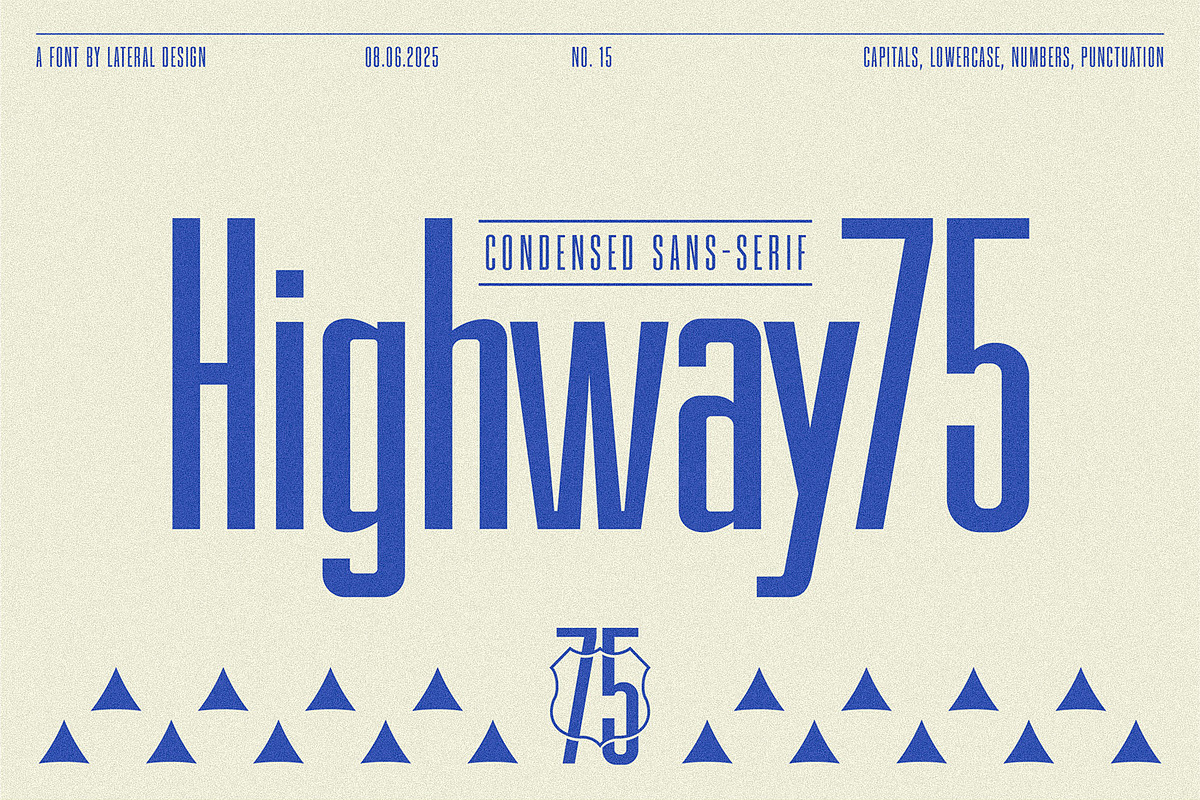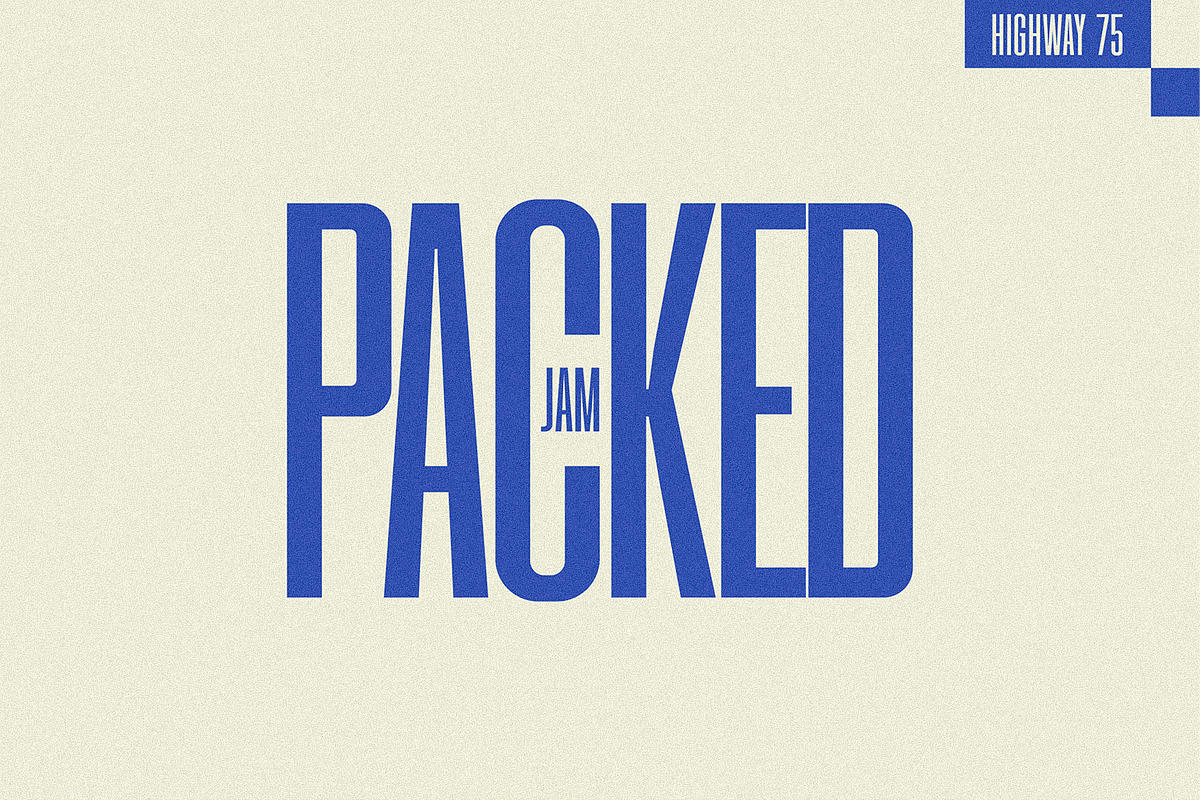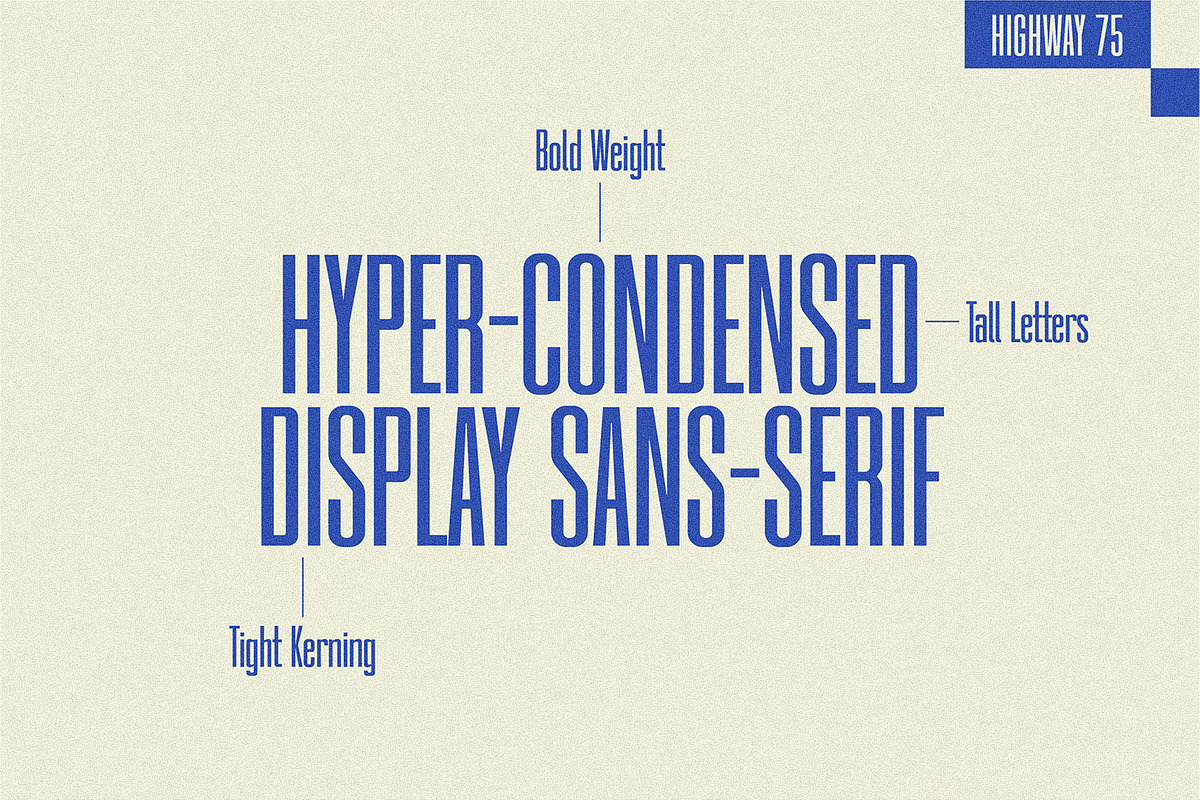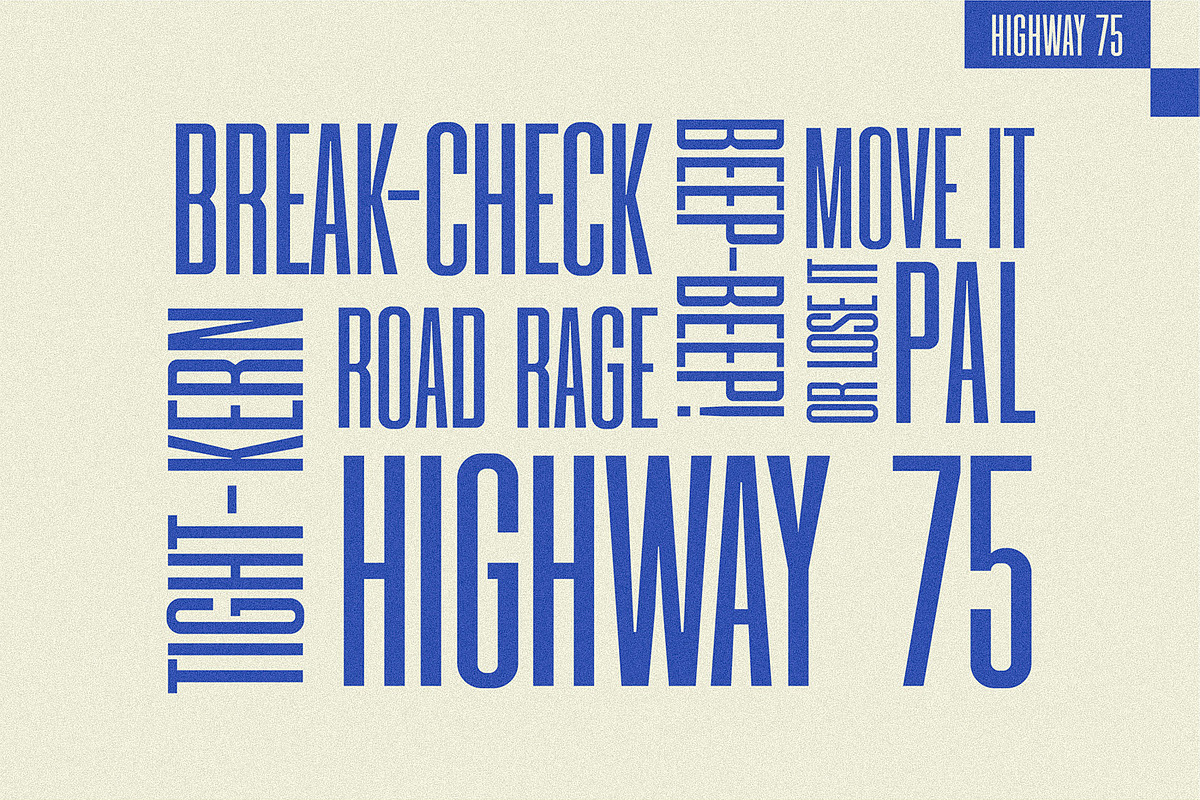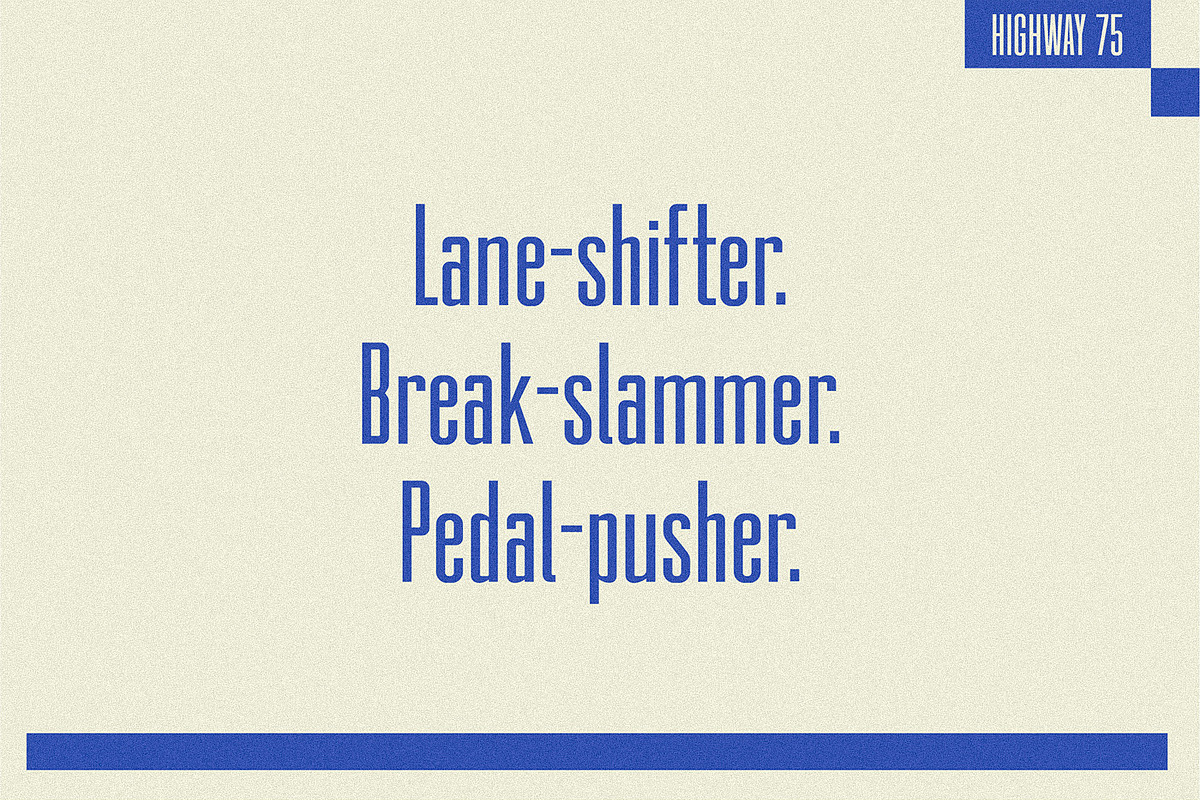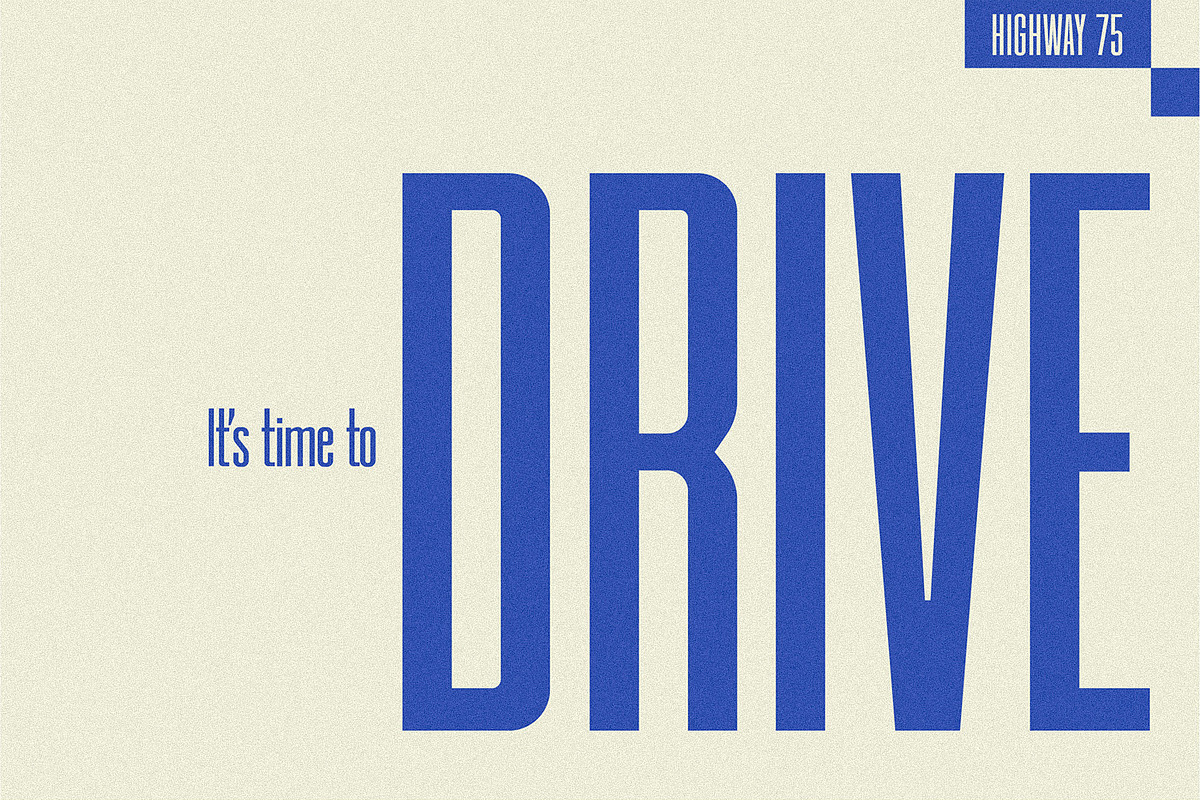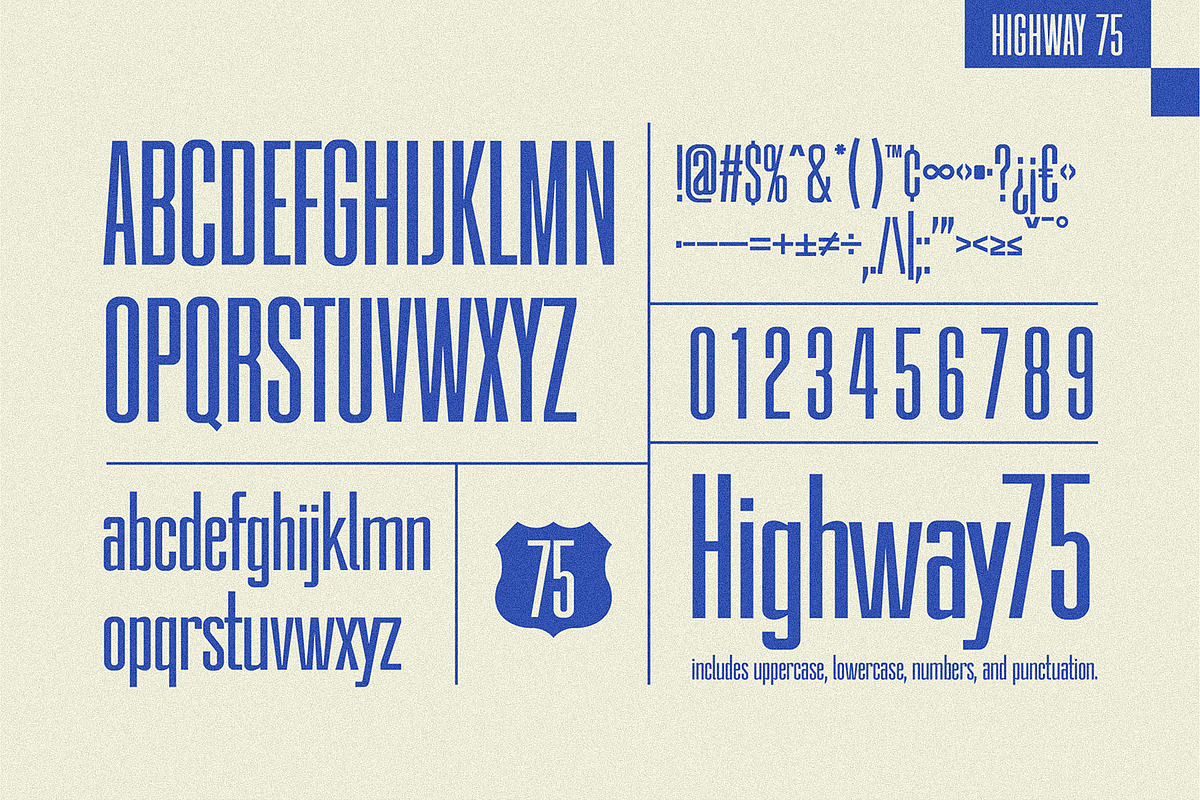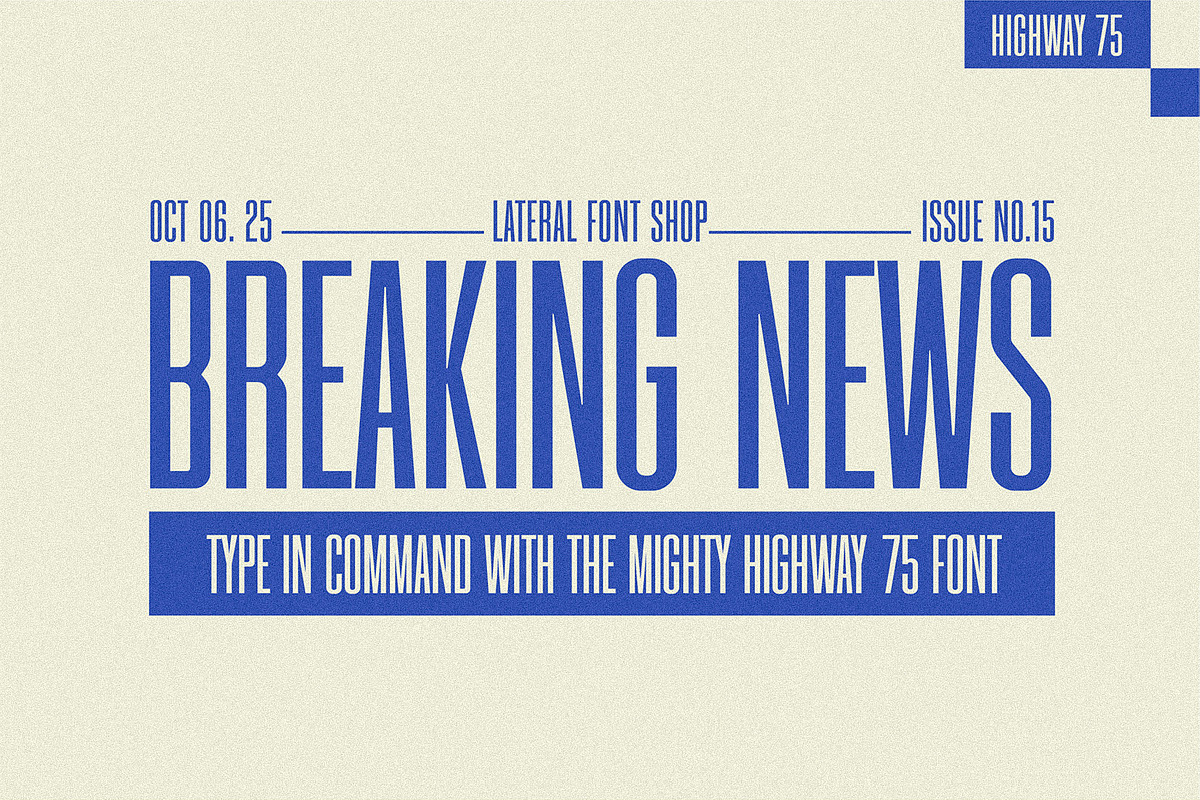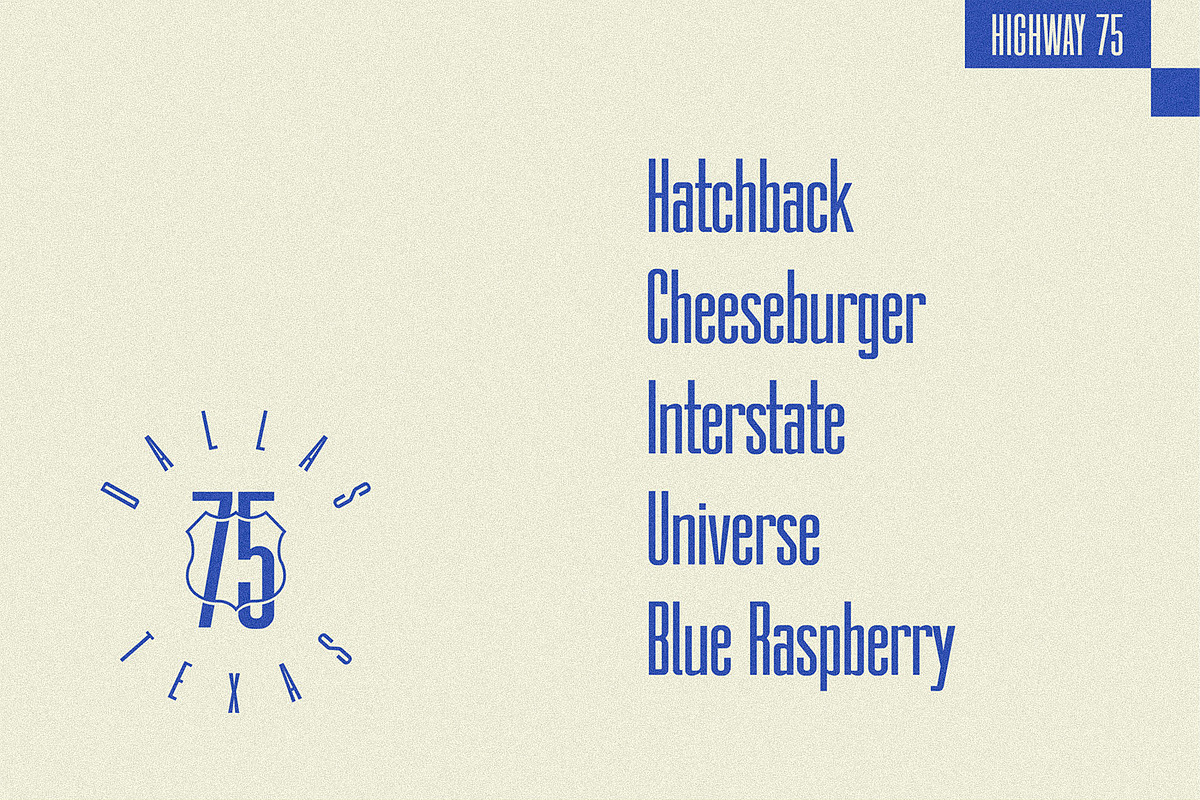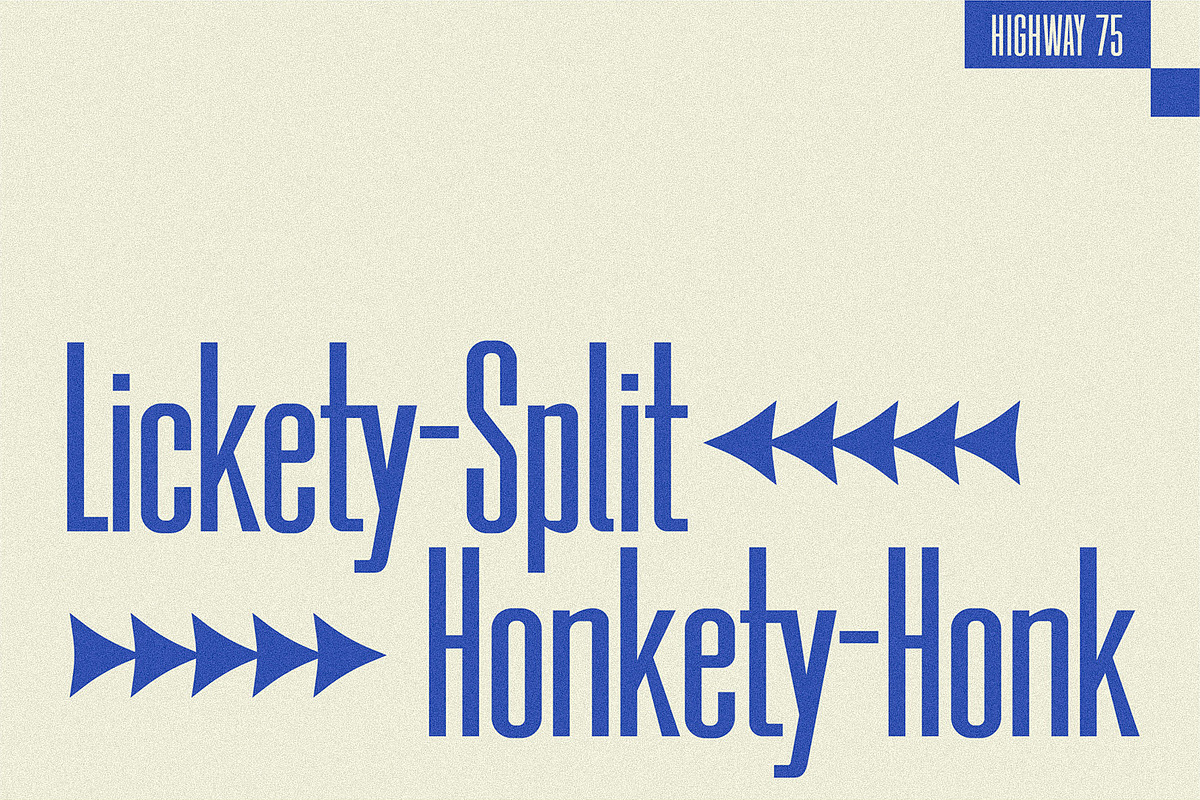
Highway 75 - Condensed Sans-Serif
Attention-Grabbing is an understatement. Highway 75 is a condensed sans serif font that is perfect for powerful display typography. With a bold weight and legible construction, use Highway 75 for anything from social media graphics, poster designs, logos, package design, websites, and anything in between. Highway 75 is inspired by countless traffic-filled commutes through Dallas, TX's main vein.
Highway 75 includes:
- Single weight style
- Capital Letters
- Lowercase Letters
- Basic punctuation
- Pre-kerned letterforms